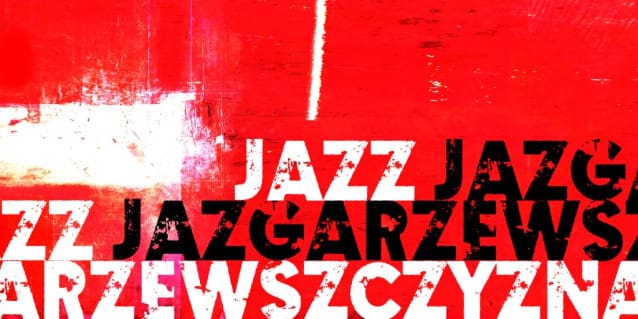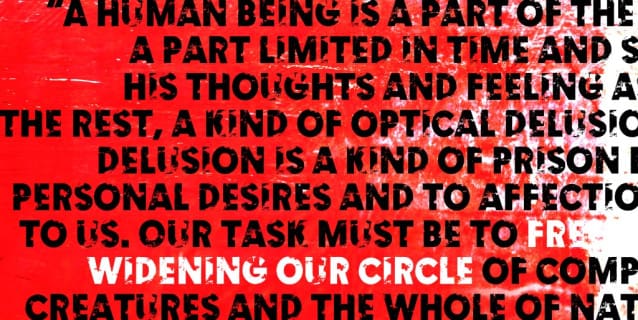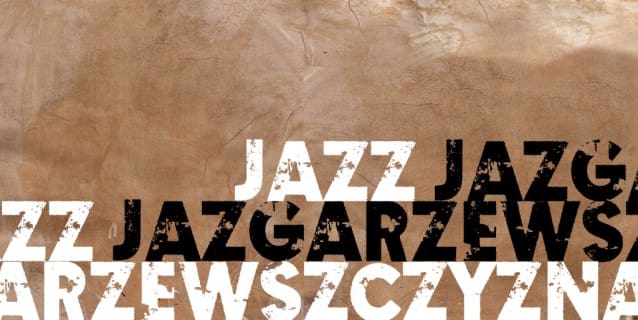
Jazz Jazgarzewszczyzna Font
Jazz Jazgarzewszczyzna Font, Suitable for any design needs : logo, branding, modern advertising design, logos, poster quote, book / cover Title, editorial design, website / blog, card, t-shirts, and any hand-lettered needs.